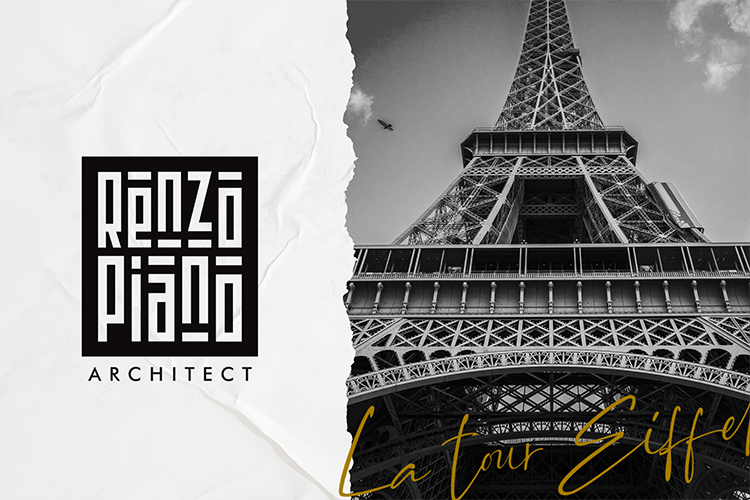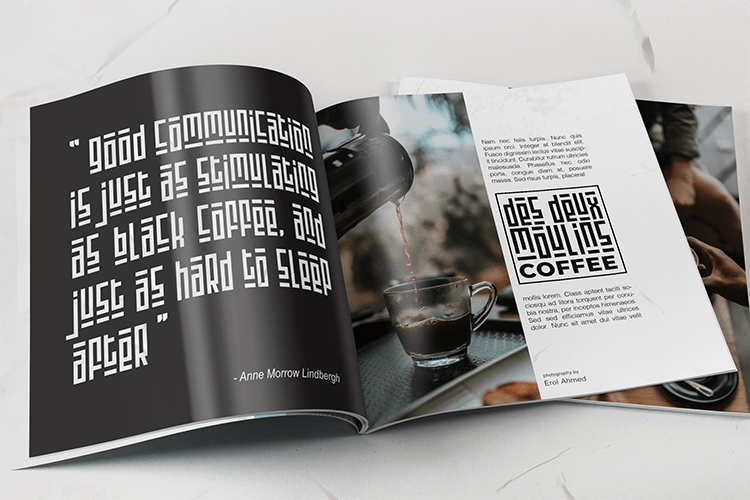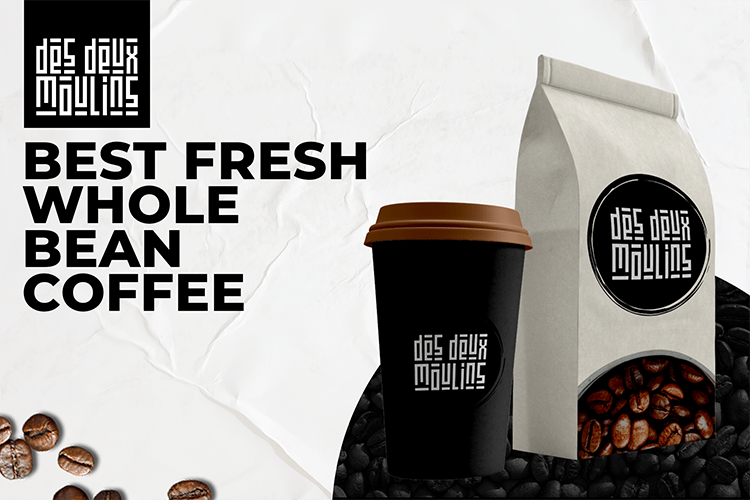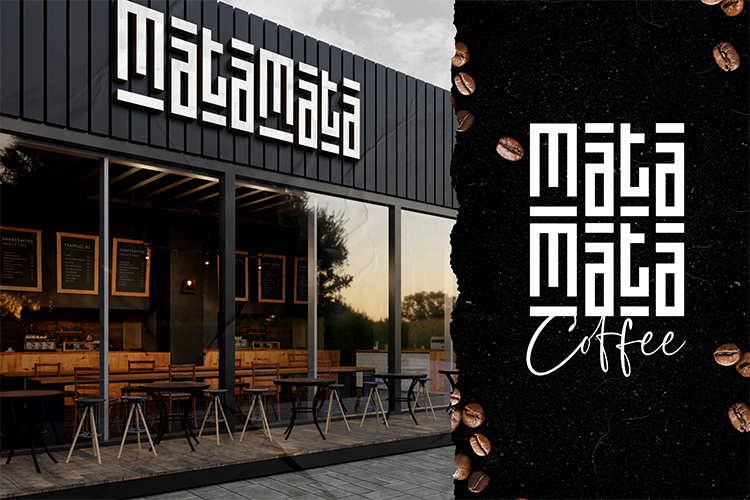
Montsera Display Font
This is a serif typeface. Perfect for Logo, quotes, headline cover, merchandise, title packaging, header, branding, logo with uniqe style , logotype or lettering.